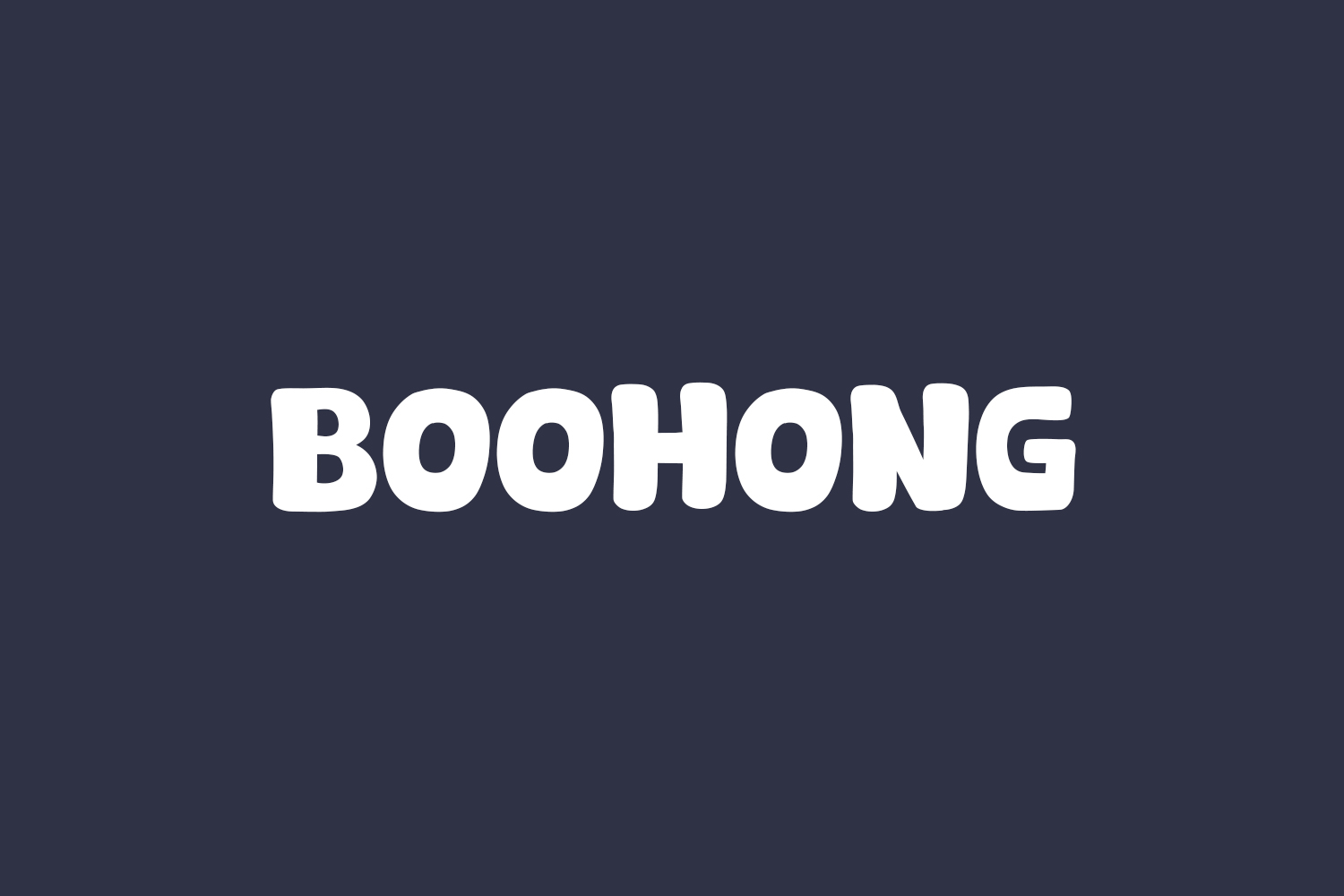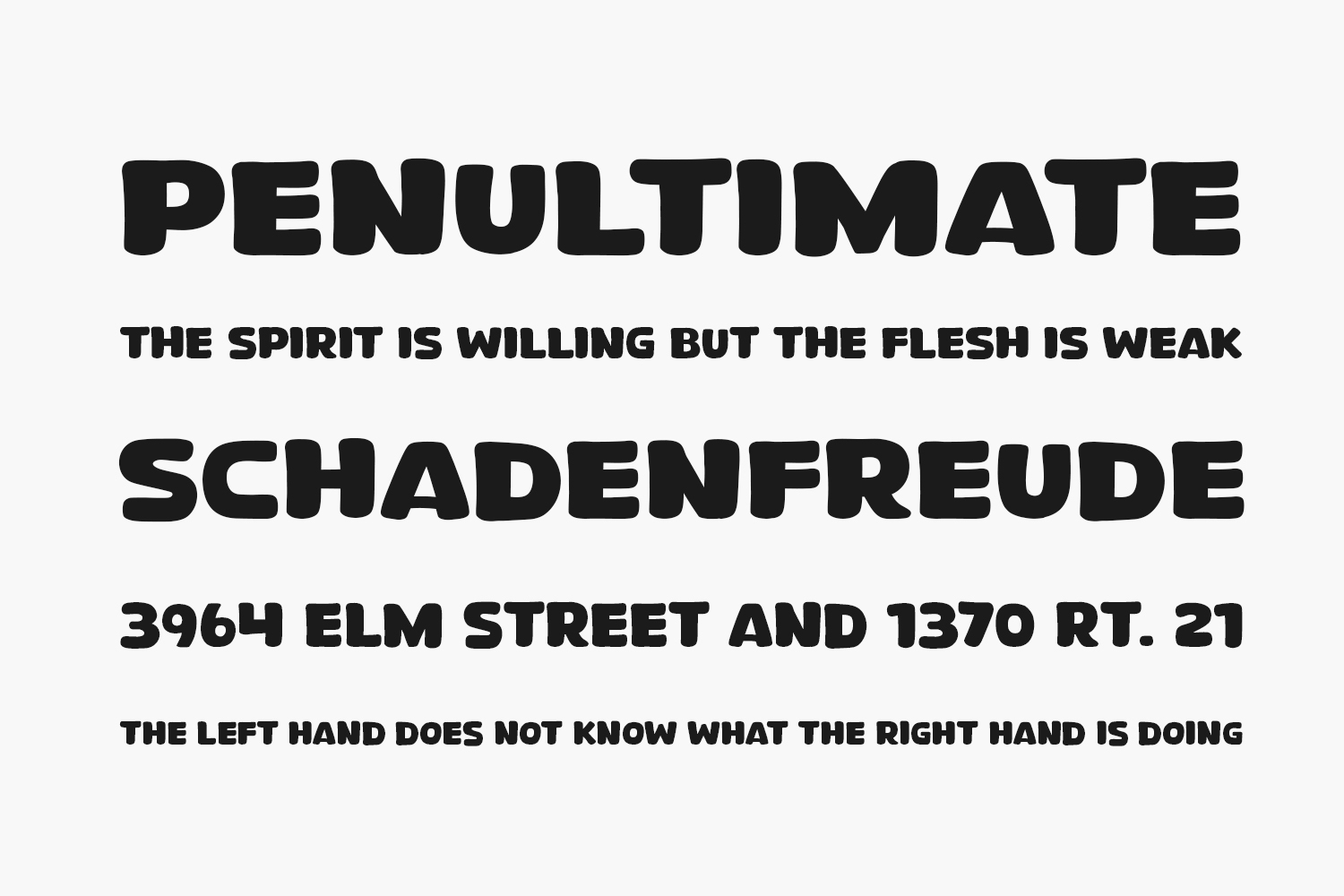
Meet Boohong Free Font, a contemporary and sophisticated display font ideal for posters, logos, magazines, book covers, banners, and beyond! Elevate your designs with this incredible font and watch as it effortlessly enhances a wide range of projects, making them truly unforgettable. Download the font for free if you need it for personal or commercial use.